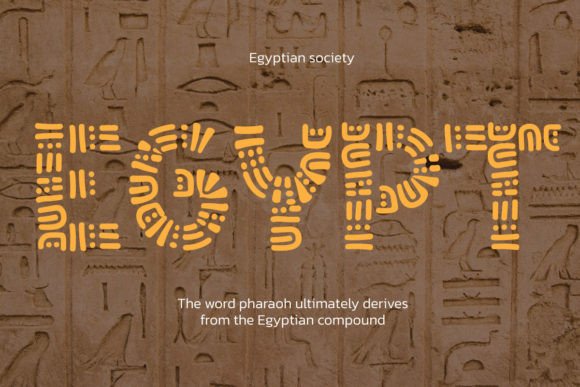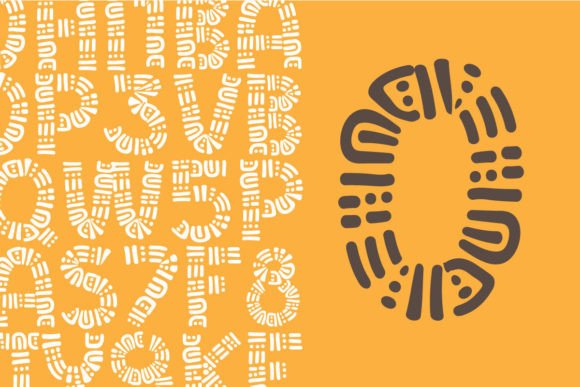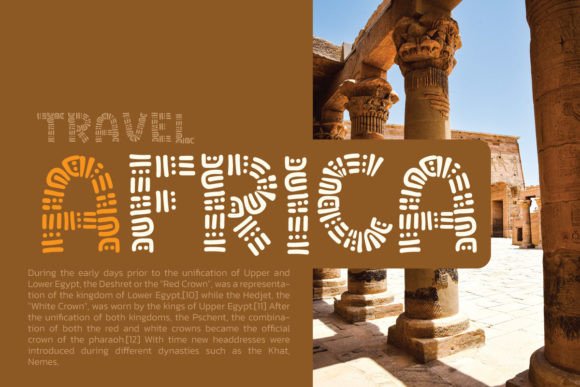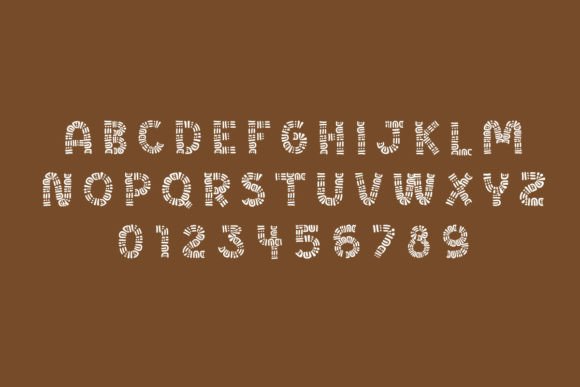
Introduction to Pharaoh Font
Have you ever been working on a creative project, pouring your heart and soul into every detail, and then suddenly, you hit a design roadblock? The perfect font can make all the difference, and that’s where the Pharaoh Font comes in – a stunning vintage African sign font style that’s sure to elevate your designs.
Whether you’re a seasoned designer or just starting out, the Pharaoh Font is a valuable resource that can add a touch of sophistication and elegance to your work. With its high-quality design and transparent background, it’s perfect for titles, logos, product packaging, and more. And the best part? It’s available for free download, making it an accessible design resource for designers of all levels.
Key Features of Pharaoh Font
- High-quality design resource suitable for various creative projects
- Comes with a large character set, including uppercase and lowercase letters, numbers, and special characters
- Designed with a unique, regal aesthetic, making it perfect for titles and headings
Honest Review: Pharaoh Font
As a designer, I’m always on the lookout for high-quality design resources that can elevate my creative projects. Recently, I stumbled upon the Pharaoh Font, and I’m excited to share my honest review with you.
Here are some things that work well: ✨ The Pharaoh Font is incredibly versatile and can be used for a wide range of design projects, from logos to typography-based designs. The font is highly customizable, allowing you to adjust the size, color, and style to suit your needs. The transparent background option is also a nice touch, making it easy to integrate the font into your design without any distractions.
- High-quality design: The font is well-designed and looks professional, making it perfect for commercial use.
One limitation I noticed is that the font may not be suitable for very small text sizes, as the details can get lost. Additionally, the font may not be as unique as some other options available in the market. ⚠️
Overall, I’m impressed with the Pharaoh Font and would definitely recommend it to designers looking for a high-quality, versatile font for their creative projects. Just be aware of the limitations mentioned above, and you’ll be all set to create amazing designs with this font.
Pharaoh Font
The Pharaoh Font is a versatile design resource ideal for various creative projects. Its high-quality, elegant style makes it perfect for adding a touch of sophistication to your designs.
Tips for Getting the Most Out of Pharaoh Font
Use the Pharaoh Font on a transparent background to create a striking effect. Experiment with different font sizes and styles to achieve the desired look.
The Pharaoh Font is ideal for:
- Magazine and book covers